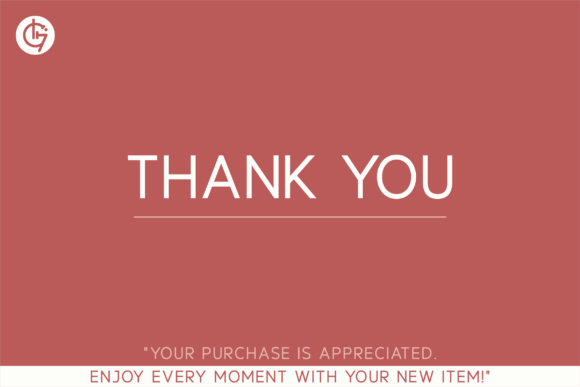
Introduction to Reflections Font
Remember the thrill of discovering the perfect font for a creative project? The rush of excitement as you finally find that elusive combination of style and readability that elevates your design from good to great? That’s what we’re here to share with you today – the perfect addition to your design arsenal: the Reflections Font.
With its modern, minimalist aesthetic and clean lines, Reflections Font is the ultimate design resource for anyone looking to make a statement. Whether you’re working on a high-end branding project or a digital interface, this all-caps sans serif font is sure to impress. Its bold, geometric structure ensures versatility, and the all-caps design emphasizes clarity and readability – making it perfect for headlines, posters, and anywhere you need your message to stand out.
Key Features of Reflections Font
- High-quality design with a transparent background, perfect for creative projects that require a touch of elegance.
- Designed with a unique blend of modern and vintage elements, making it suitable for a variety of creative projects.
- Features a high-resolution design, suitable for printing and digital use, with a minimum resolution of 300 DPI.
- Perfect for use in logos, branding materials, and other design elements where a touch of sophistication is required.
- Includes a range of characters and glyphs, making it a versatile design resource for creative projects.
Honest Review: Reflections Font
I recently stumbled upon the Reflections Font while searching for a high-quality design resource for a creative project. I must say, I was impressed with the overall quality and versatility of this font.
What works well: ✨ The Reflections Font is incredibly easy to use and comes with a transparent background, making it perfect for overlaying on images or backgrounds. The font is also highly customizable, allowing you to adjust the size, color, and style to suit your design needs.
- Easy to use and customize
- Transparent background ideal for overlaying on images or backgrounds
Reflections Font
The Reflections Font is a unique and creative design resource that can add a touch of elegance to any project. It’s available for free download and comes with a high quality, transparent background that makes it perfect for use in various design applications.
Tips for Getting the Most Out of Reflections Font
To get the most out of the Reflections Font, experiment with different font sizes, colors, and layouts to create unique and eye-catching designs. You can also combine the font with other design elements, such as images and graphics, to create a cohesive and visually appealing project.
Common Use Cases for Reflections Font
The Reflections Font is perfect for use in a variety of creative projects, including logo design, graphic design, and web design. It’s also great for use in presentations, reports, and other documents where a touch of elegance and sophistication is desired.